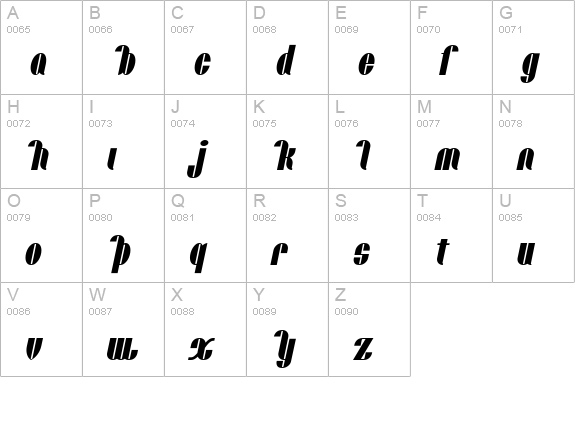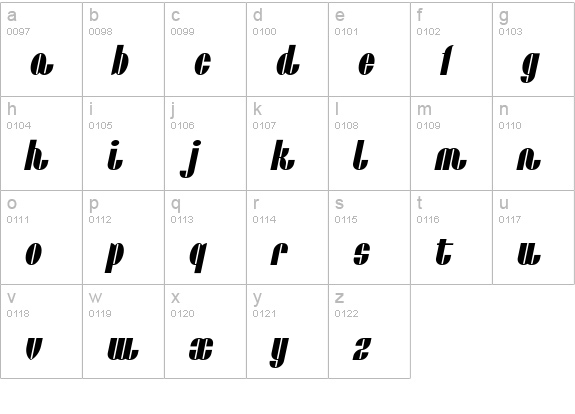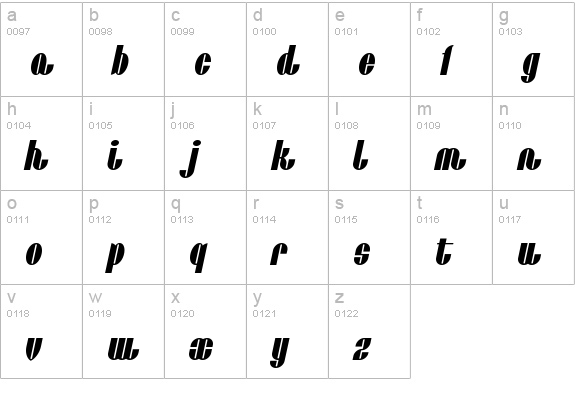
Catalunya Choo Choo NF Font Details
Catalunya Choo Choo NF is a charming and whimsical font that exudes a playful and cheerful vibe. With its unique design and quirky details, this font is perfect for adding a touch of creativity to your projects. Its rounded edges and flowing lines give it a friendly and approachable feel, making it ideal for a variety of design applications. What makes Catalunya Choo Choo NF even more appealing is that it is available for free download at FontsMarket.com. Whether you're working on a poster, greeting card, or any other creative project, this font is sure to bring a fun and lively element to your designs. Embrace the joy and creativity of Catalunya Choo Choo NF in your next project and let your imagination run wild!